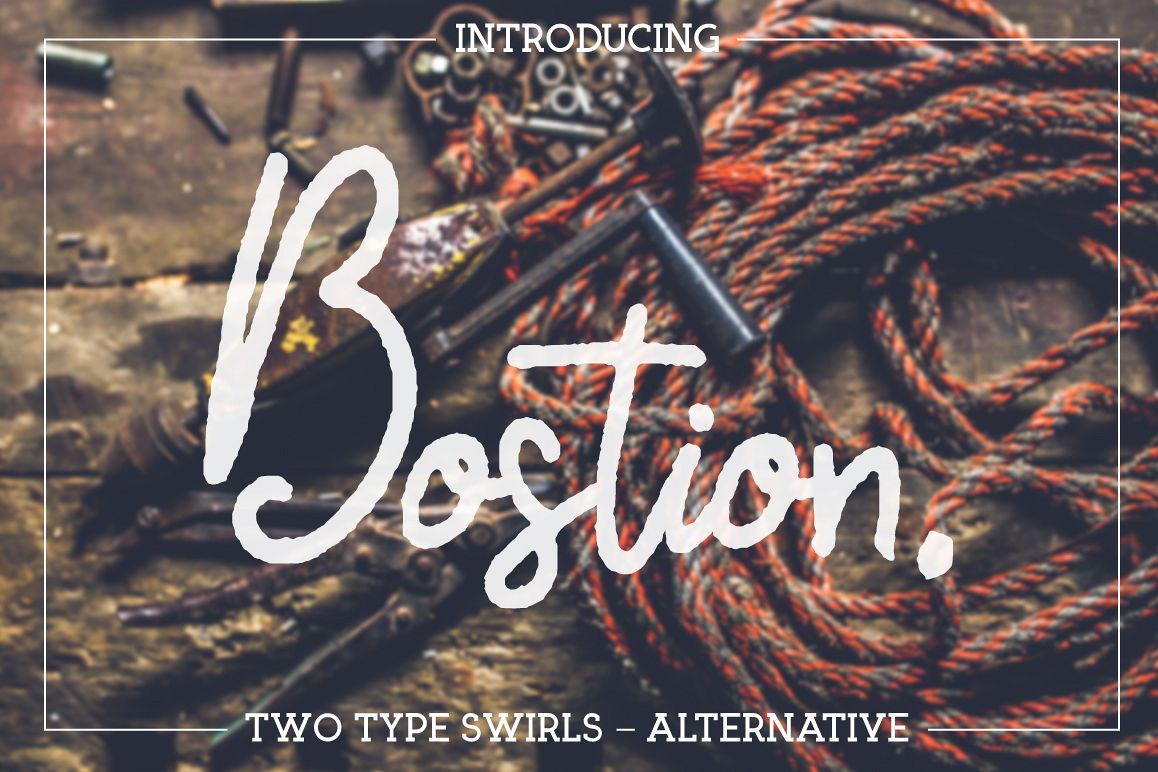
Bostion
It's hand lettered and modern script font. The script comes with alternative letters and swirls.This fonts are perfect for your blog or postcard for wedding. Also with their help, you can create a logo or beautiful frame for your home. Or just use for your small business, book covers, stationery, marketing, magazines.